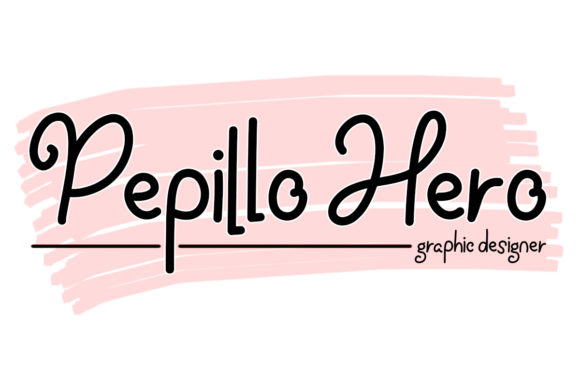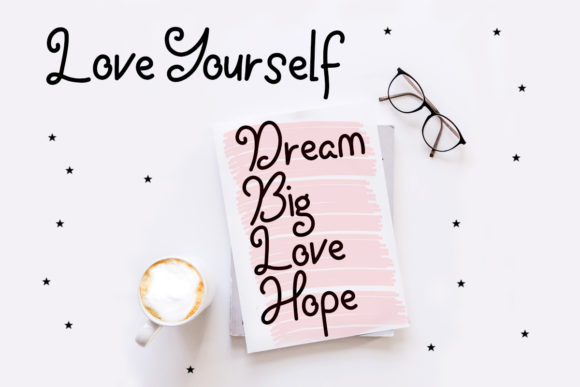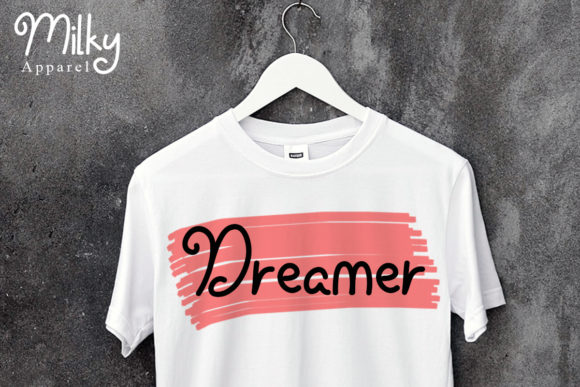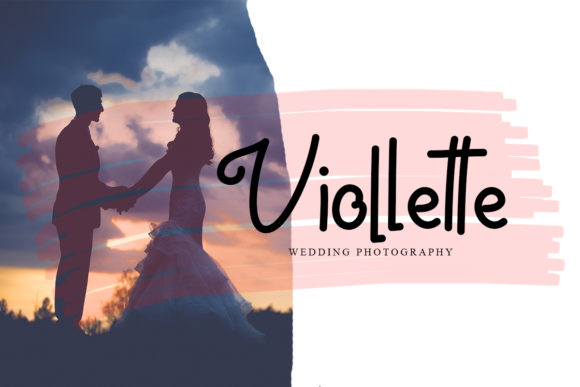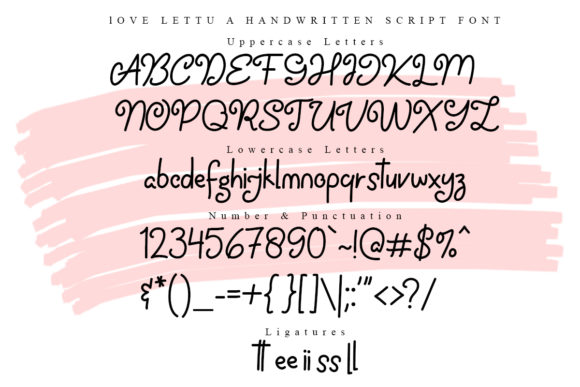
Introduction to Love Lettu Font Font
Fonts play a crucial role in design, and the Love Lettu Font font is a typeface that brings both character and versatility to any project. Whether you’re working on a branding project, a website, or a print design, the Love Lettu Font font offers a unique style that can elevate your work.
Love Lettu is a sweet and friendly handwritten font.
Its natural and unique style makes it incredibly fitting for a large pool of designs The only limit is your imagination.
Key Features of Love Lettu Font Font
Why Choose Love Lettu Font Font?
The Love Lettu Font font is more than just a typeface – it’s a design tool that helps you communicate your message with style and clarity. Its unique character set and versatile design make it suitable for a wide range of applications, from elegant invitations to bold headlines.
With its carefully crafted letterforms and balanced proportions, the Love Lettu Font font ensures readability and visual appeal across all mediums.
What makes Love Lettu Font font special?
The Love Lettu Font font stands out with its unique design, exceptional readability, and versatility across various design applications.